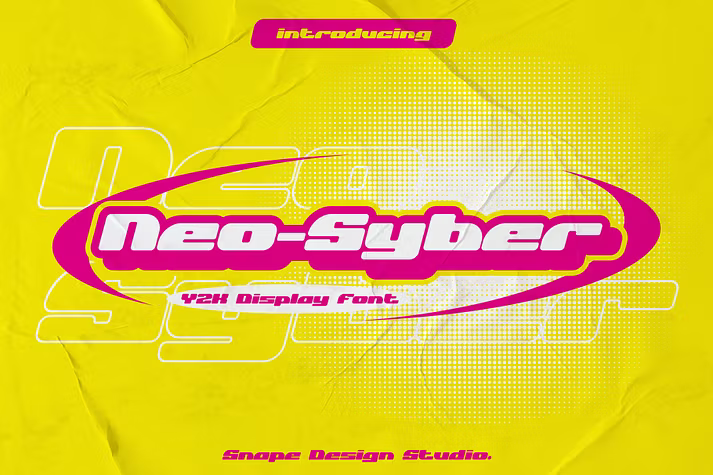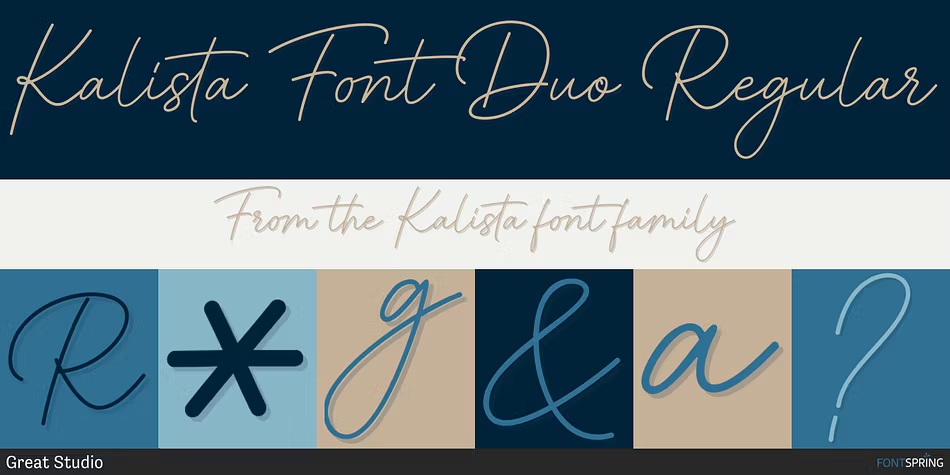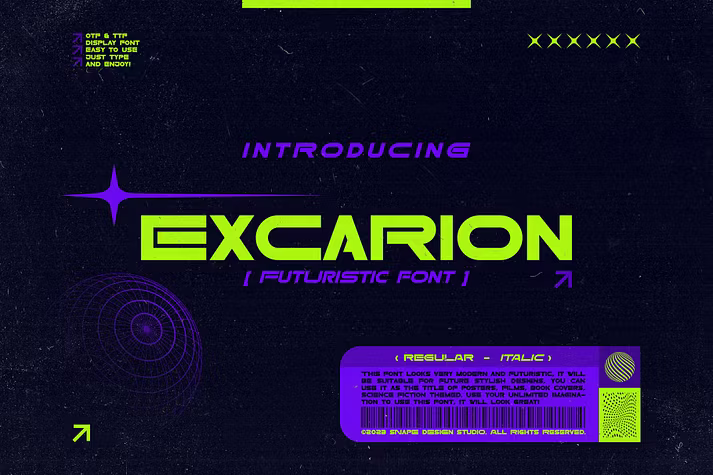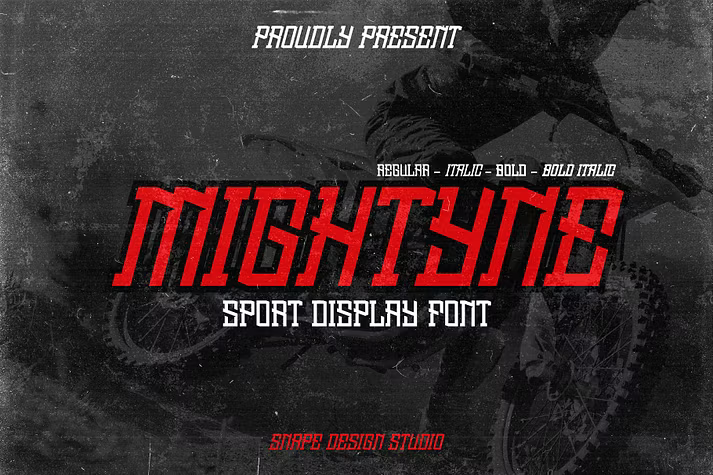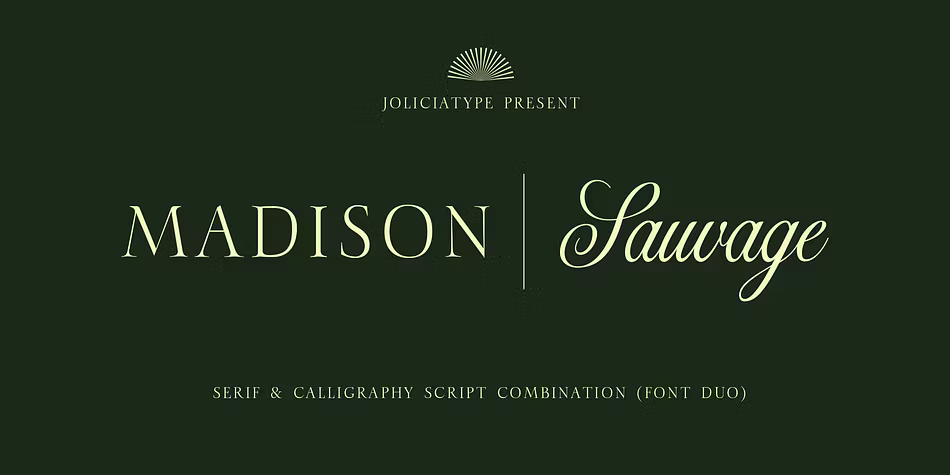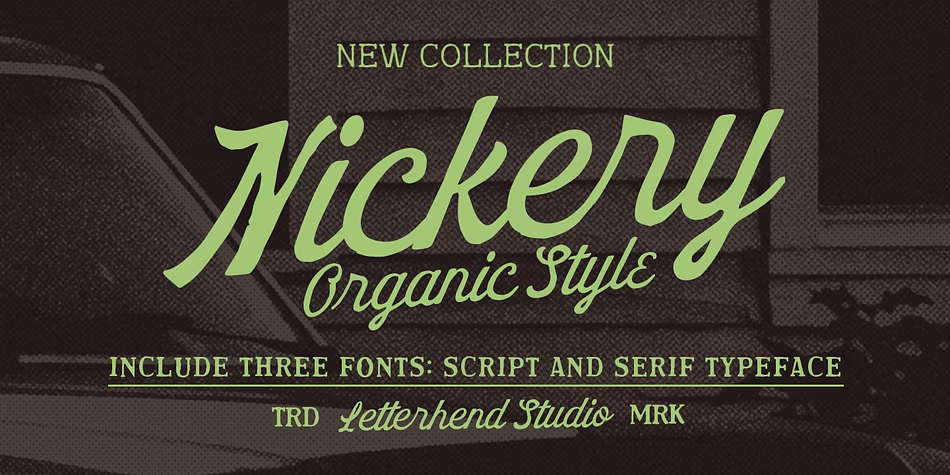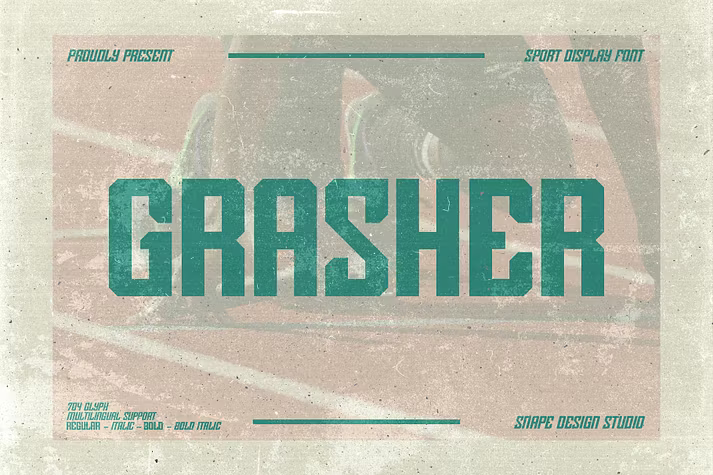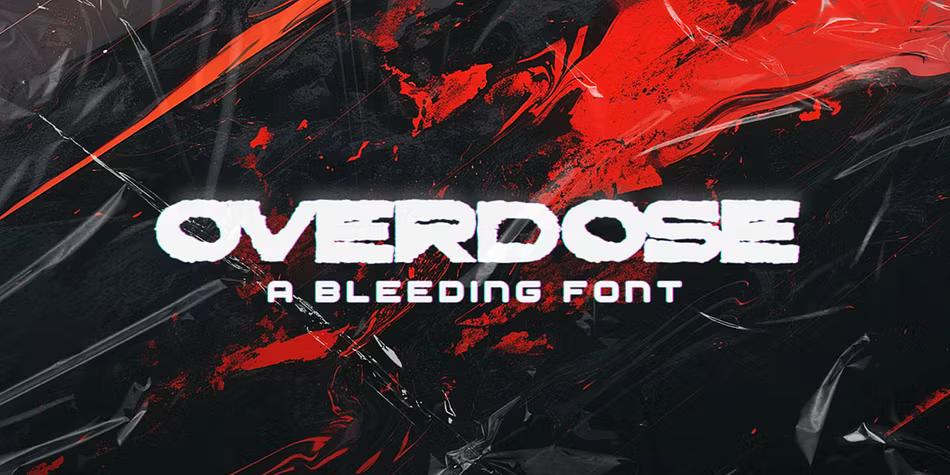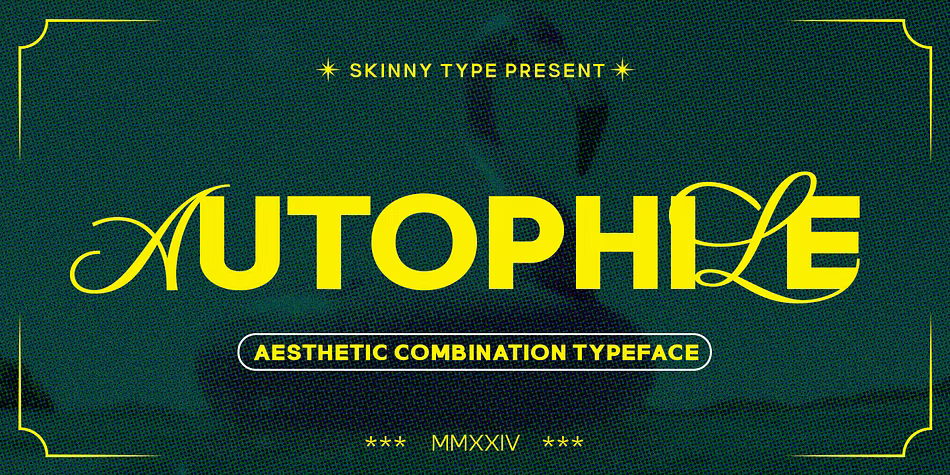
In the world of design, fonts play a crucial role in conveying messages and feelings. The right font can transform a simple design into an eye-catching masterpiece. Today, we explore a collection of stunning display fonts that exemplify creativity and style. Fonts like Neo Syber, Kalista, Excarion, and others offer unique characteristics that make them ideal for various projects, from branding to digital media. Each font brings its own flair, whether it’s the futuristic vibes of Neo Syber or the elegant touch of Madison Sauvage. Dive into our curated selection and discover how these fonts can enhance your designs and captivate your audience.
Neo Syber
Neo Syber is a captivating futuristic font that draws inspiration from the Y2K design era, reflecting the vibrancy of music and pop culture from that time. Ideal for technology, digital aesthetics, and space-themed projects, this font is perfect for movie titles, logos, posters, and game covers. Its bold design ensures it stands out, making it a fantastic addition to any creative work. Whether you’re designing a book cover or a headline, Neo Syber will elevate your project with its unique style. Explore its versatility and let it inspire your next creative endeavor.
Kalista
Kalista is a luxurious font that beautifully combines modern serif and signature styles, resulting in a typeface that radiates elegance. This handcrafted font duo allows you to mix and match elements to create stunning typography for a variety of design projects. Whether you're working on logos, packaging, social media graphics, or wedding invitations, Kalista adds a touch of sophistication. The font includes numerous ligatures and alternates, ensuring versatility and creativity in your designs. With extensive language support, Kalista is ideal for international projects, making it a must-have for any designer seeking to elevate their work.
Excarion
Excarion is a striking futuristic font that merges innovation with artistic flair, designed to elevate your design projects. This typeface features sleek, modern characters that are perfect for a variety of applications, including sci-fi themes, tech branding, and more. Whether you're crafting a logo, creating eye-catching titles, or developing a visual identity, Excarion offers versatility and impactful styling. With both regular and italic versions included, this font empowers you to customize your design further. Embrace the future of typography with Excarion and bring your creative visions to life.
Mightyne
Mightyne is a dynamic sport font crafted to make a bold statement. With its strong and powerful design, it brings an energetic feel to any project, making it ideal for sports teams, jerseys, and branding. This versatile font can also be utilized in various contexts such as movie titles, posters, and book covers. Its attention-grabbing style ensures that your designs stand out and convey a sense of vigor. With features like uppercase, lowercase, and multilingual support, Mightyne is perfect for any creative endeavor that seeks to evoke passion and excitement.
Rimona
Rimona is a contemporary hybrid font that elegantly fuses sans serif and script styles, creating a unique and versatile typeface. Its beautiful ligatures and alternates add an element of sophistication, making it a great choice for both playful and refined designs. With multilingual support, Rimona is perfect for branding, packaging, and editorial projects. Whether you're designing logos, invitations, or social media graphics, this font ensures a polished and professional appearance. Experience the harmony of form and function with Rimona, and let it enhance your creative projects.
Madison Sauvage
Madison Sauvage is an exquisite typeface that masterfully combines the classic elegance of serif fonts with the fluid charm of calligraphic script. This unique blend creates a luxurious and timeless aesthetic that is perfect for high-end branding, elegant wedding invitations, and sophisticated editorial layouts. The versatility of Madison Sauvage allows it to be used for everything from bold headlines to delicate signature touches. Its refined character and rich heritage make it a standout choice for designers seeking to evoke a sense of prestige and style in their projects.
Nickery
Nickery is a unique and organic-style font that combines script and serif typefaces, offering a bold yet charming aesthetic. This font is perfect for logos, product packaging, and branding, as it adds a rustic feel to both modern and retro designs. With its handcrafted appearance, Nickery is ideal for projects seeking a personal touch. It features uppercase and lowercase letters, numbers, and multilingual support, ensuring versatility in various creative applications. Let Nickery bring warmth and character to your designs while maintaining clean readability.
Grasher
Grasher is a bold sport font designed to capture attention and convey strength. Its strong presence makes it ideal for sports-related projects, from team logos to jerseys and promotional materials. This font not only excels in sporting contexts but can also enhance movie posters, book covers, and other graphic designs that require a vibrant touch. With features like uppercase, lowercase, and multilingual support, Grasher offers versatility for any creative project. Make a statement with Grasher and let your designs resonate with energy and enthusiasm.
Overdose
Overdose is a striking bold font that features a unique bleeding ink effect, giving it a dramatic flair. Ideal for projects that require a strong visual impact, this font is perfect for posters, headlines, and other creative applications. Its wide design ensures readability, while the boldness adds to its captivating presence. Whether you’re designing for a music event, fashion brand, or any project that demands attention, Overdose will elevate your work with its distinctive style. Use it to make a statement and capture your audience’s interest with ease.